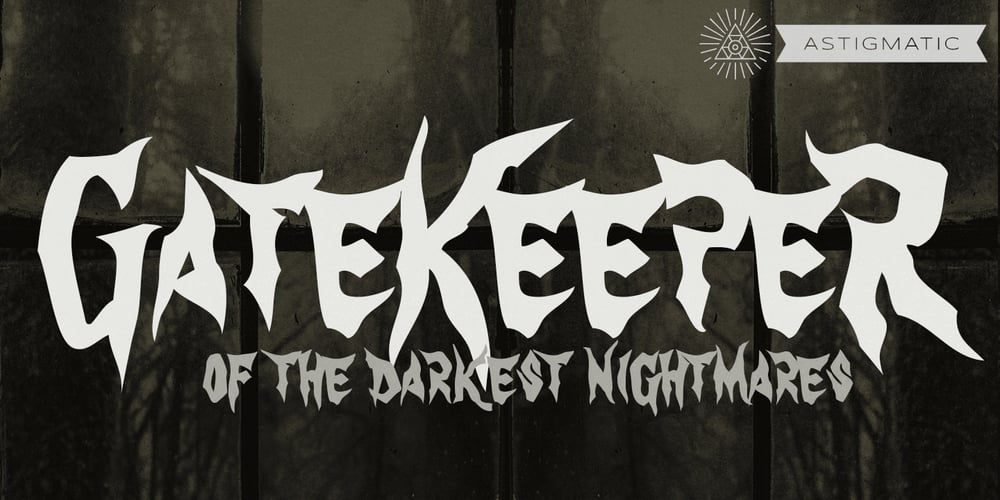
Gate Keeper AOE
Gate Keeper AOE font
Gate Keeper AOE Font Family was designed by Brian J. Bonislawsky and published by Astigmatic. Gate Keeper AOE contains 1 styles and family package options. The GateKeeper typeface was inspired by old horror movies, and the various poster typography that went with some of them. A loose and pointy typestyle, GateKeeper embodies the dark side of typography and life, with a creepy and on edge feeling. With large and small capitals, it is easy to exchange cases in events of double characters, which can lend for a very interesting offbeat quality. Usable for any ocassion, but most suitable for dark matter. Learn about the GateKeeper, study his methods, and pass his test. Get the GateKeeper typeface today, and you are on your way!